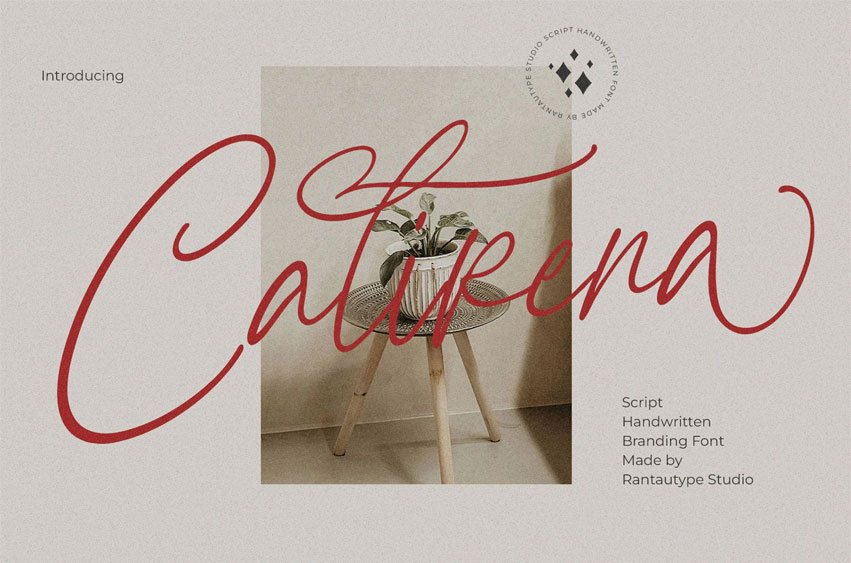
Calirena Font is modern handwritten script font capturing elegance and versetile.
Calirena is a perfectly choice for any creative endeavor, creating, modern, lifestyle design such as logotype, title, cover, branding, invitations, wedding designs, display and magazine, social media posts, advertisements, printed quotes, product packaging, corporate brand, product designs, labels, photography, watermarks, special events and any other project with elegant touch.